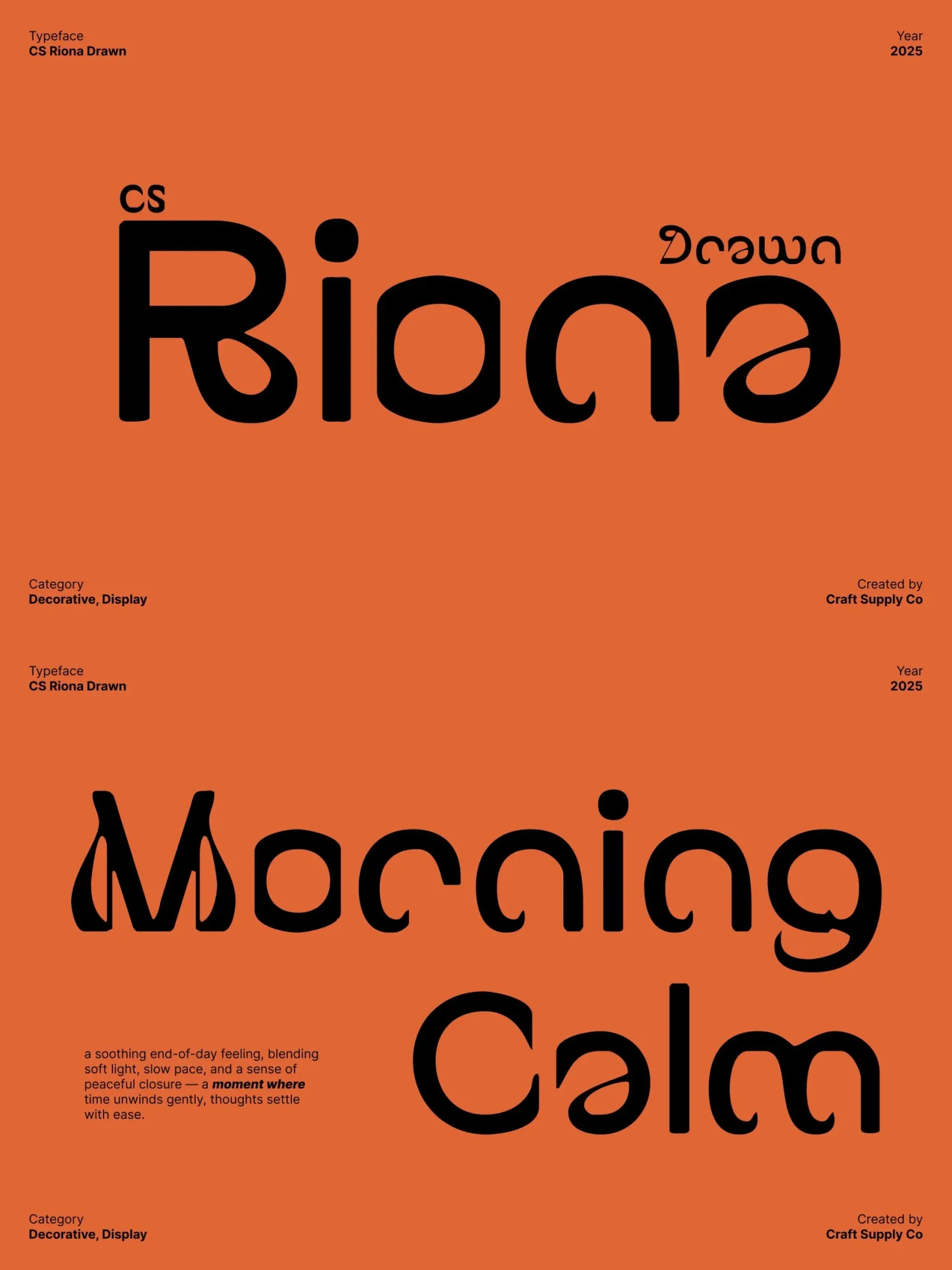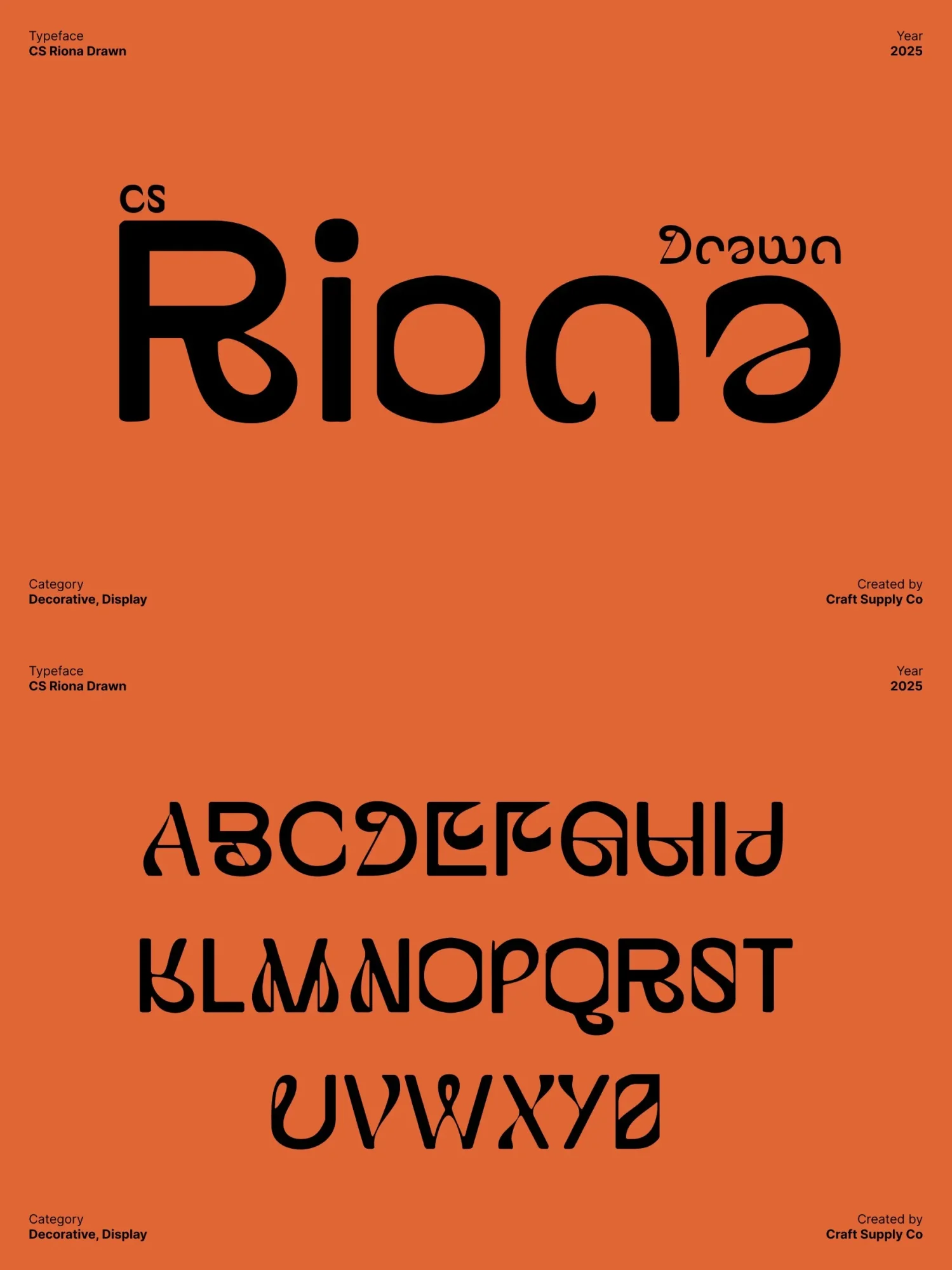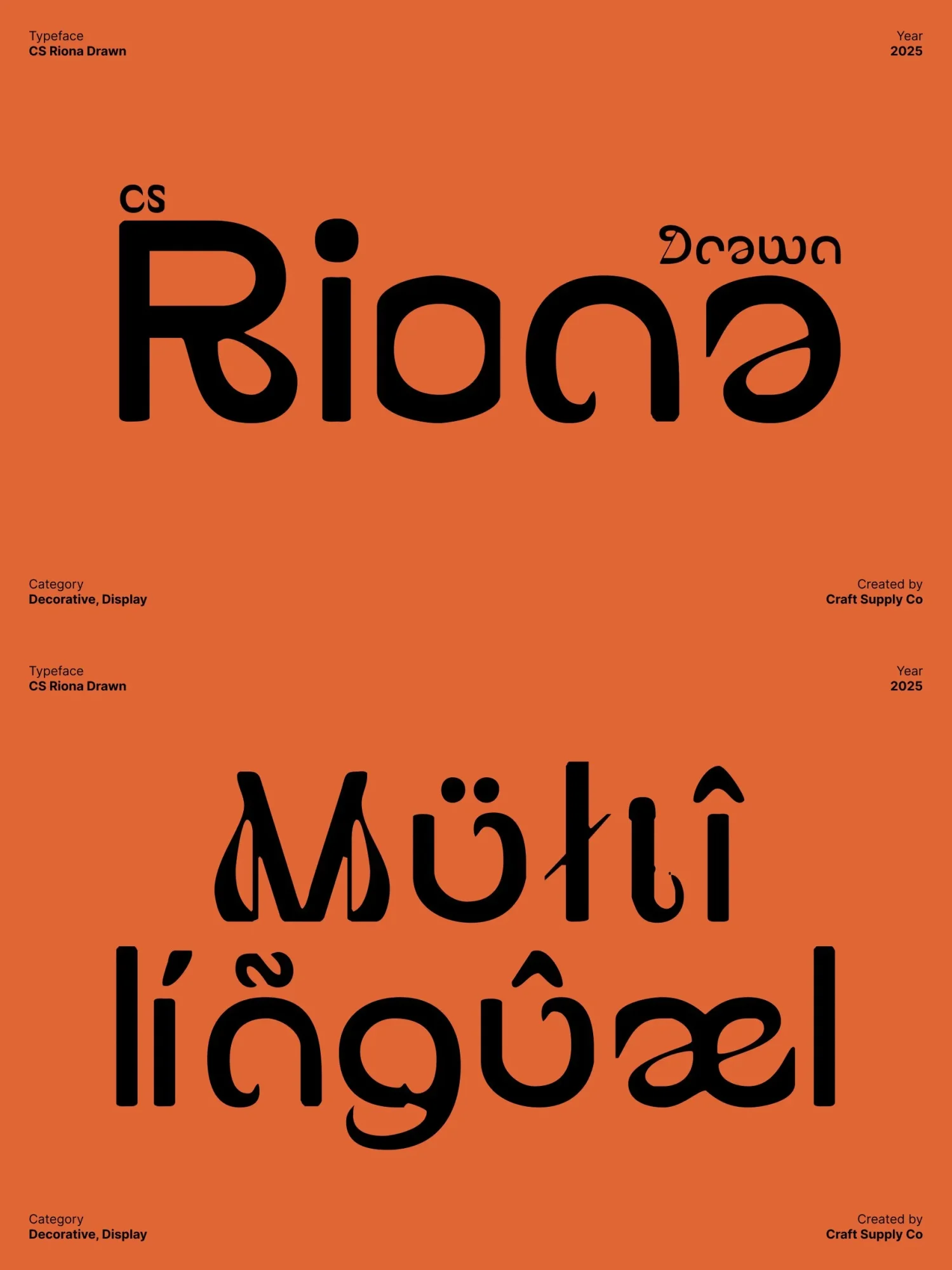
Refined Sans Serif with Artistic Flair
This is a sophisticated sans serif font designed to combine modern clarity with artistic expression. Its clean structure is enhanced with decorative alternates and unique ligatures, giving each letterform personality and a distinctive visual rhythm. This balance of refinement and creativity makes it ideal for designers looking to elevate logos, posters, and editorial layouts with a high-end, stylish edge.
Hand-Drawn Texture for Authentic Imperfection
The drawn effect adds expressive, imperfect edges and textured strokes, giving a handmade, authentic character. Each glyph carries subtle irregularities that mimic natural pen or brush strokes, creating depth and visual interest. This artistic texture transforms clean sans serif lines into a dynamic, tactile design element that feels personal and unique.
Perfect for Posters, Packaging, and Creative Branding
This font thrives in creative applications where personality and sophistication are essential. Use it for high-end branding, custom packaging, editorial spreads, or standout poster designs. Its combination of decorative alternates, ligatures, and hand-drawn texture allows designers to craft layouts that feel both polished and creatively expressive.
A Versatile Typeface with Handmade Elegance
Blending clean sans serif clarity with hand-drawn artistry, this font offers a unique typographic experience that is versatile, expressive, and visually striking. Perfect for projects that aim to convey creativity, sophistication, and individuality, this font ensures every design carries a distinctive, handcrafted presence.